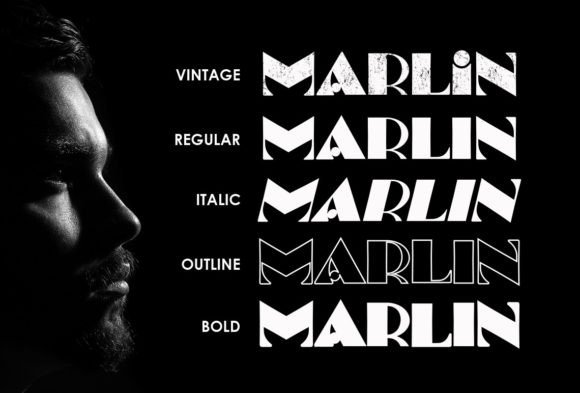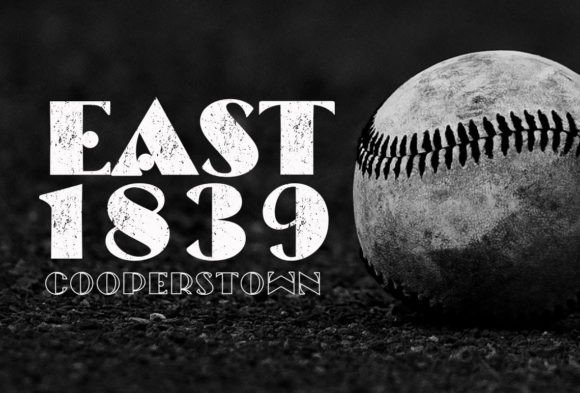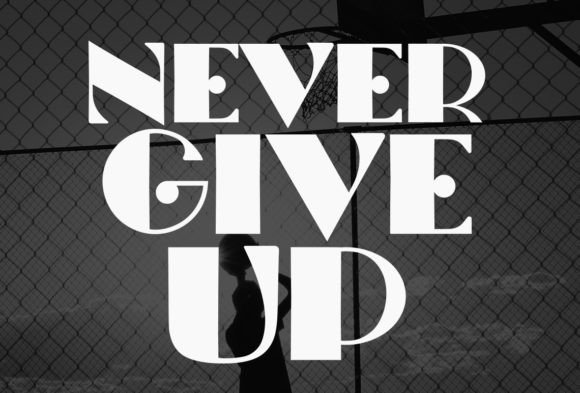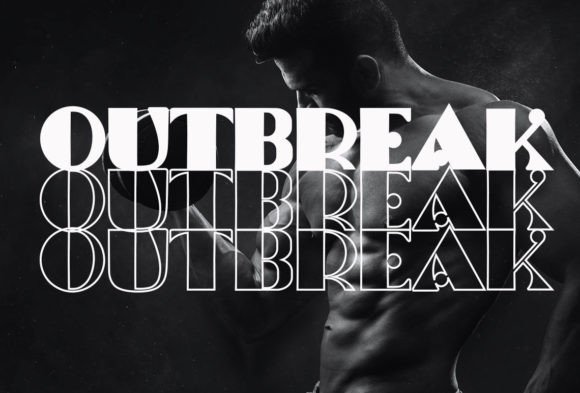
Introduction to Marlin Font Font
Fonts play a crucial role in design, and the Marlin Font font is a typeface that brings both character and versatility to any project. Whether you’re working on a branding project, a website, or a print design, the Marlin Font font offers a unique style that can elevate your work.
Marlin is a classy and stylish slab serif font.
Its unique style, slightly reminding of Art-Deco designs, makes this font the ideal choice when creating sophisticated and bold projects .
Key Features of Marlin Font Font
Why Choose Marlin Font Font?
The Marlin Font font is more than just a typeface – it’s a design tool that helps you communicate your message with style and clarity. Its unique character set and versatile design make it suitable for a wide range of applications, from elegant invitations to bold headlines.
With its carefully crafted letterforms and balanced proportions, the Marlin Font font ensures readability and visual appeal across all mediums.
What makes Marlin Font font special?
The Marlin Font font stands out with its unique design, exceptional readability, and versatility across various design applications.